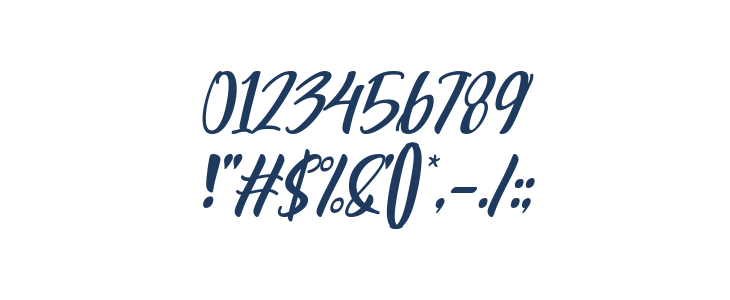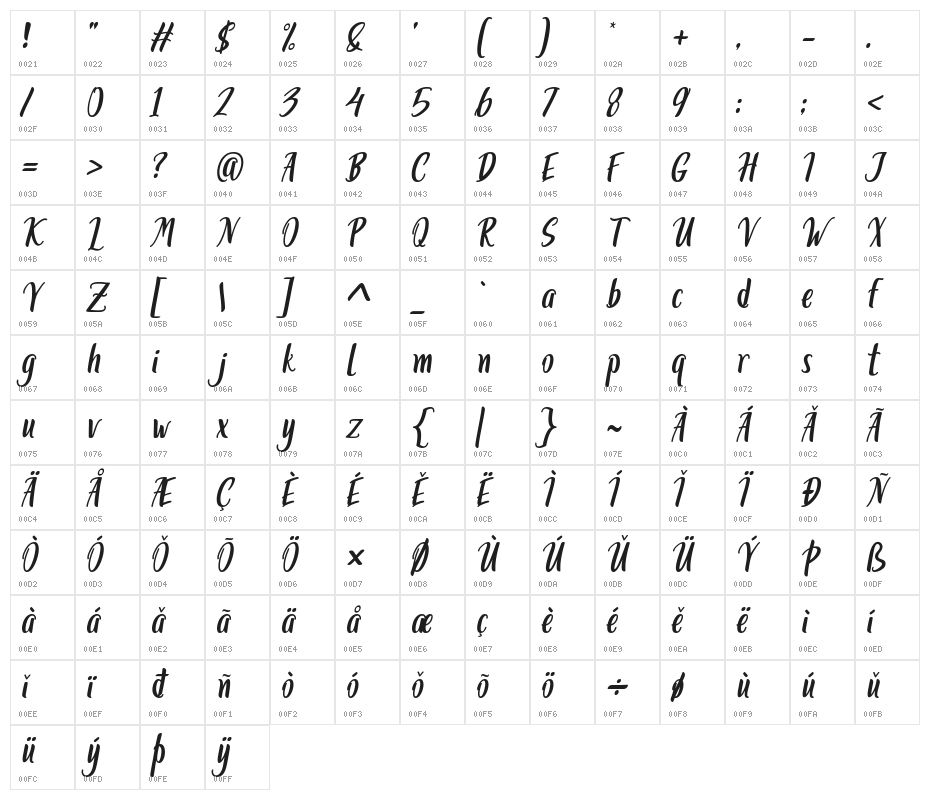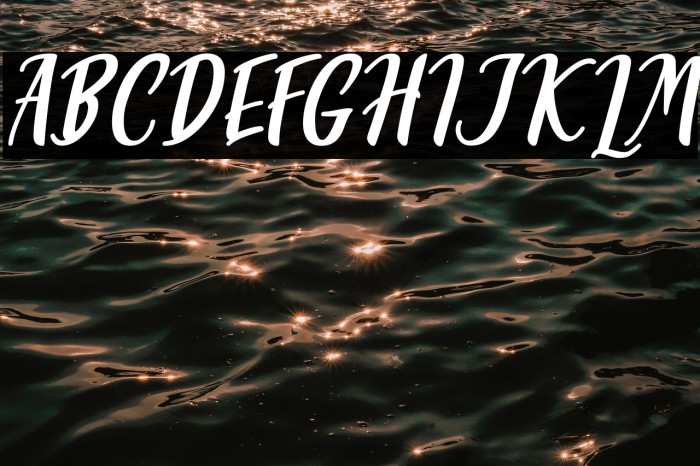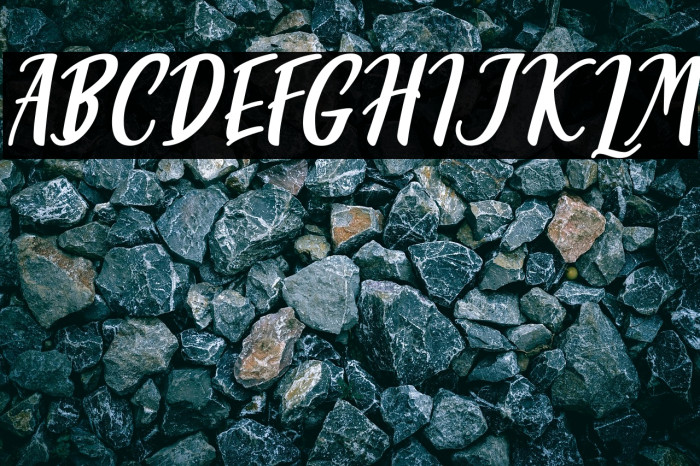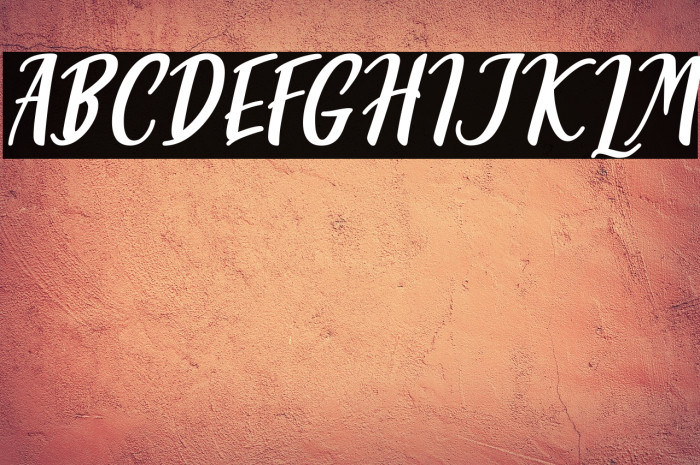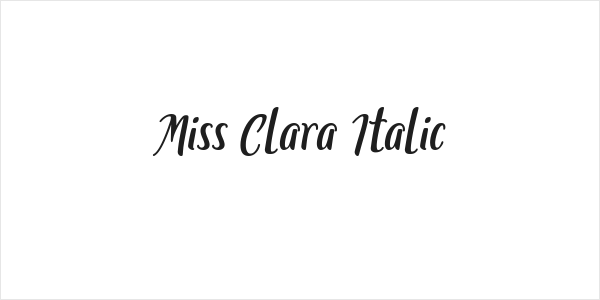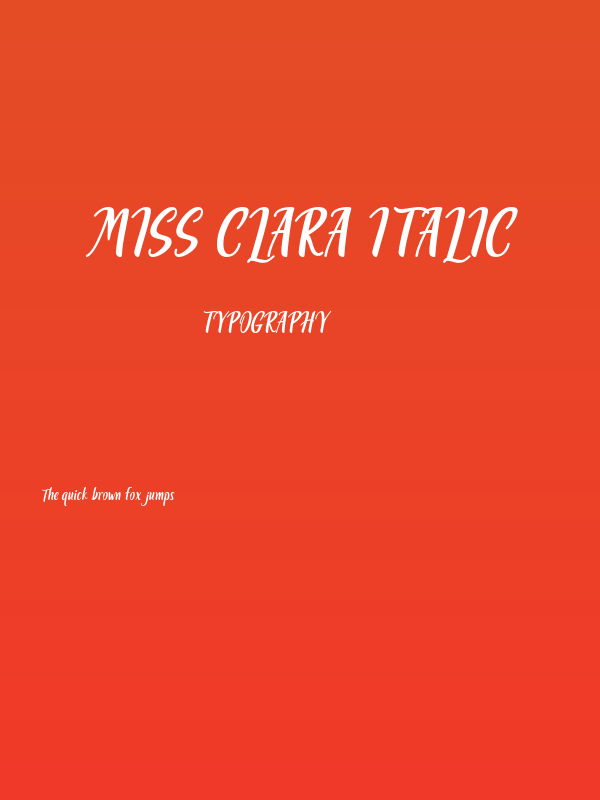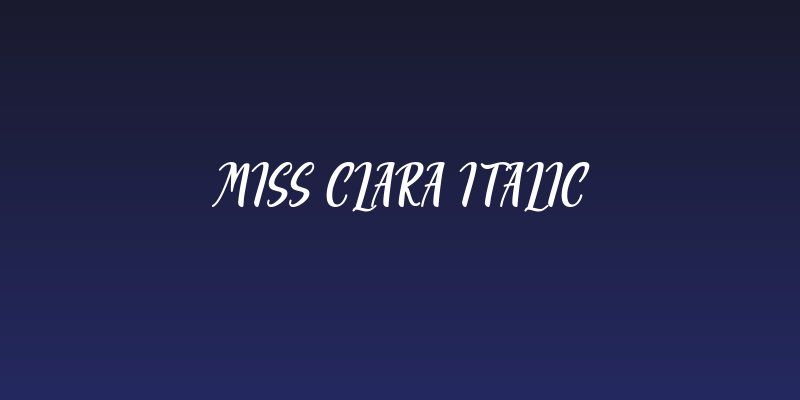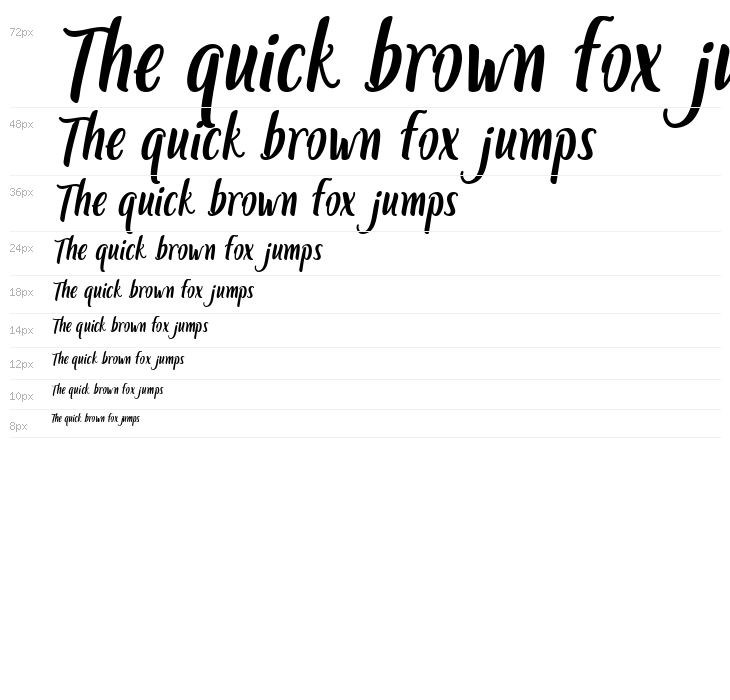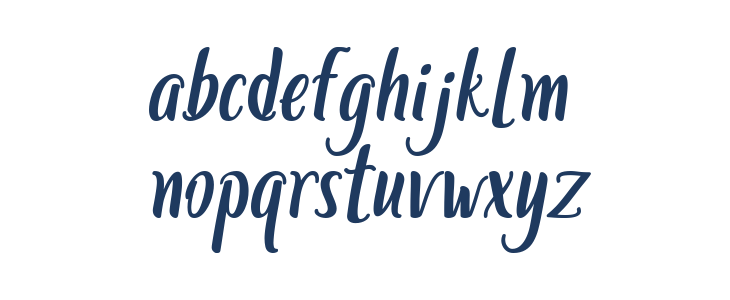
Miss Clara Italic Font
Miss Clara Italic Description
This font exudes a lively and dynamic character with its flowing, cursive style. The letters are elegantly slanted, giving a sense of movement and grace. Each character is crafted with smooth curves and a consistent stroke width, creating a harmonious and cohesive look. The uppercase letters are bold and prominent, while the lowercase letters maintain a delicate balance, offering readability and style. The numerals are distinct and easily recognizable, complementing the overall aesthetic. Special characters are thoughtfully designed, maintaining the font's fluidity and charm.
Use CaseLogos, Invitations, Decorative text
Proposed ProjectsIdeal for wedding invitations, greeting cards, branding, and elegant packaging.